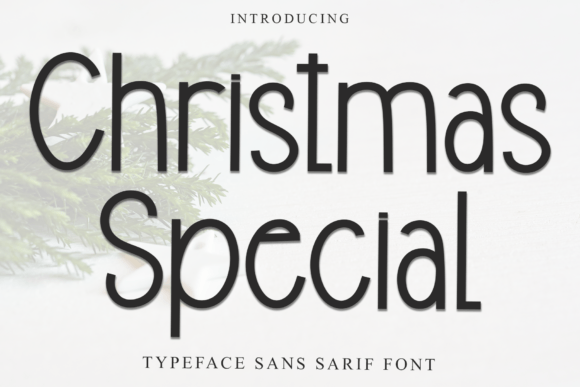
Christmas Special Font: Add a Touch of Festivity to Your Designs
Are you looking for a font that can add a touch of festivity to your designs? Look no further than the Christmas Special Font. This beautiful font is perfect for creating stunning designs that capture the spirit of the holiday season. In this article, we’ll take a closer look at the Christmas Special Font, its features, and how you can use it to elevate your designs.
What is Christmas Special Font?
Christmas Special Font is a unique and elegant font that is designed to give your work a natural and festive feel. The font features smooth touches and beautiful strokes that make it perfect for creating designs that are both visually appealing and easy to read. Whether you’re creating a banner, YouTube thumbnail, logo design, wedding invitation card, or clothing mockup, this font is sure to impress.
Features of Christmas Special Font
The Christmas Special Font has several features that make it an ideal choice for designers. Some of its key features include:
- Smooth Touch: The font has a smooth touch that gives it a natural and elegant feel.
- Beautiful Strokes: The font features beautiful strokes that make it perfect for creating designs that are both visually appealing and easy to read.
- Versatile: The font is versatile and can be used for a wide range of designs, including banners, YouTube thumbnails, logo designs, wedding invitation cards, clothing mockups, and more.
- Easy to Read: The font is easy to read, making it perfect for designs that require a clear and concise message.
Uses of Christmas Special Font
The Christmas Special Font is a versatile font that can be used for a wide range of designs. Here are some of the most popular uses of this font:
- Banners: Create stunning banners that capture the spirit of the holiday season with the Christmas Special Font.
- YouTube Thumbnails: Use the font to create eye-catching YouTube thumbnails that grab the attention of your audience.
- Logo Designs: Create professional logo designs that reflect the festive spirit of your brand with the Christmas Special Font.
- Wedding Invitation Cards: Add a touch of elegance and festivity to your wedding invitation cards with this beautiful font.
- Clothing Mockups: Use the font to create stunning clothing mockups that showcase your designs in a festive and elegant way.
- T-Shirts: Create eye-catching t-shirt designs that capture the spirit of the holiday season with the Christmas Special Font.
Benefits of Using Christmas Special Font
There are several benefits to using the Christmas Special Font for your designs. Some of the most significant benefits include:
- Unique and Festive: The font adds a unique and festive touch to your designs, making them stand out from the crowd.
- Elegant and Sophisticated: The font has an elegant and sophisticated feel that makes it perfect for creating designs that are both visually appealing and professional.
- Easy to Read: The font is easy to read, making it perfect for designs that require a clear and concise message.
- Versatile: The font is versatile and can be used for a wide range of designs, making it a great addition to your font library.
Tips for Using Christmas Special Font
Here are some tips for using the Christmas Special Font effectively in your designs:
- Use it for Festive Designs: Use the font for festive designs that require a unique and elegant touch.
- Experiment with Different Sizes: Experiment with different font sizes to find the perfect size for your design.
- Pair it with Other Fonts: Pair the Christmas Special Font with other fonts to create a unique and visually appealing design.
- Use it for Headings and Titles: Use the font for headings and titles to add a touch of elegance and festivity to your design.
| Font Name | Christmas Special Font |
| Author | PiPi Creative |
In conclusion, the Christmas Special Font is a beautiful and versatile font that is perfect for adding a touch of festivity to your designs. With its smooth touch, beautiful strokes, and elegant feel, this font is sure to impress. Whether you’re creating banners, YouTube thumbnails, logo designs, wedding invitation cards, clothing mockups, or t-shirts, the Christmas Special Font is a great choice. So why wait? Download the Christmas Special Font today and start creating stunning designs that capture the spirit of the holiday season.